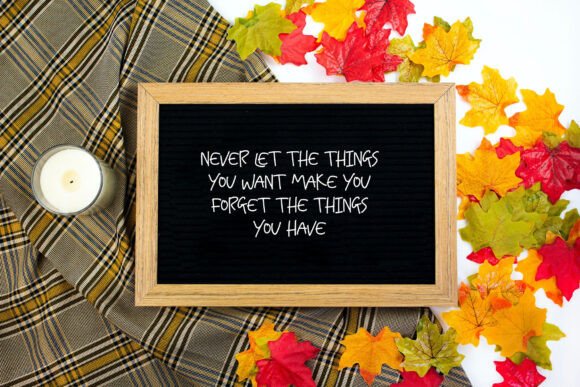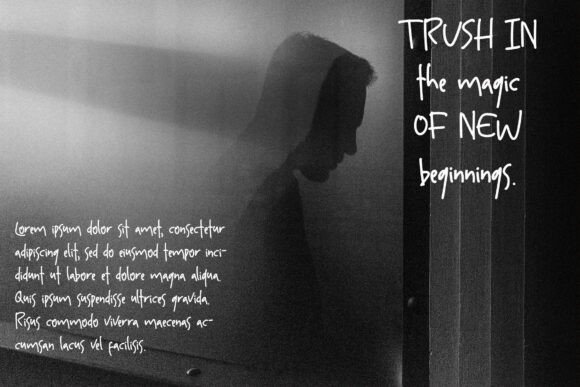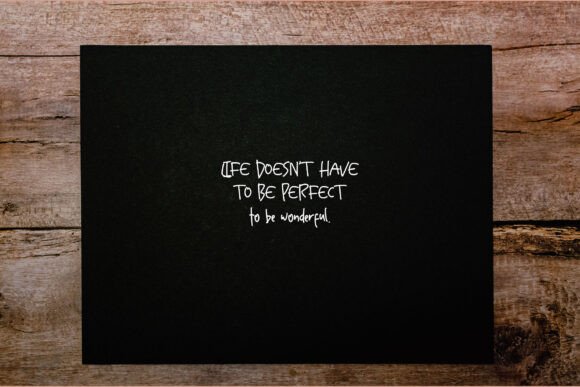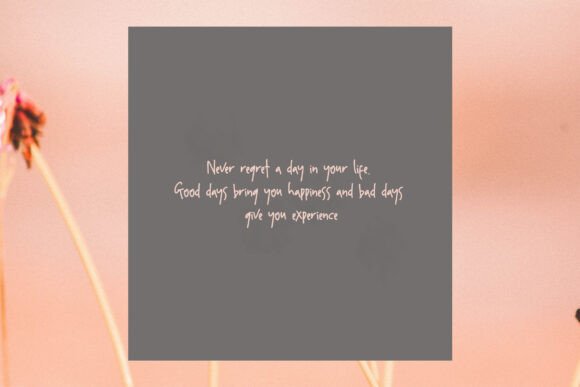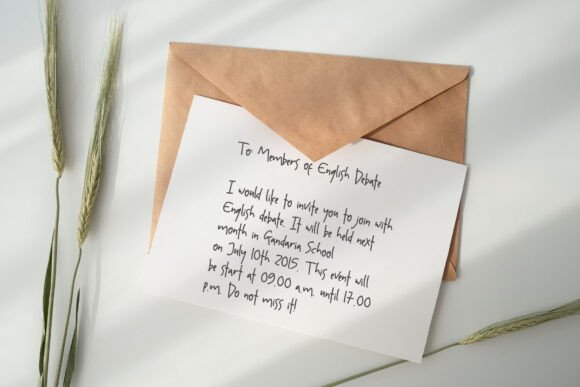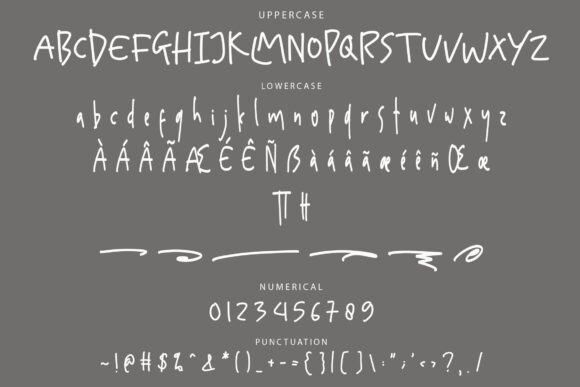
Aminola Font: Elevate Your Designs with Minimalist Elegance
In the world of typography, fonts play a crucial role in conveying the tone and aesthetic of a design. For designers and crafters looking to add a touch of modern sophistication to their creations, Aminola Font is an excellent choice. This minimalist monoline handwriting font is designed to bring clean lines and unique character shapes to your designs, making it perfect for a wide range of applications.
What is Aminola Font?
Aminola is a carefully crafted font that embodies the essence of minimalist design. Its monoline handwriting style features smooth, flowing lines that give your designs a sense of elegance and refinement. The font’s clean and simple aesthetic makes it versatile enough to be used in various design projects, from logos and product branding to invitations and more.
Key Features of Aminola Font
- Minimalist Design: Aminola’s minimalist approach ensures that your designs look sleek and modern, perfect for brands and projects that value simplicity.
- Monoline Handwriting Style: The font’s monoline handwriting style adds a personal touch to your designs, making them more approachable and engaging.
- Unique Character Shapes: Aminola’s unique character shapes set it apart from other fonts, giving your designs a distinctive look that’s sure to capture attention.
- Clean Lines: The font’s clean lines ensure that your designs look crisp and professional, making it perfect for high-end branding and marketing materials.
Uses of Aminola Font
Aminola’s versatility makes it suitable for a wide range of design applications. Here are some of the ways you can use this elegant font:
- Logo Design: Create a lasting impression with a custom logo that showcases your brand’s personality and values.
- Product Branding: Elevate your product packaging with Aminola’s sophisticated design, making your products stand out on store shelves.
- Invitations: Add a touch of elegance to your invitations, making them perfect for weddings, parties, and other special occasions.
- Marketing Materials: Use Aminola to create professional-looking marketing materials, such as brochures, flyers, and business cards.
Benefits of Using Aminola Font
By incorporating Aminola into your design projects, you can enjoy several benefits, including:
- Enhanced Visual Appeal: Aminola’s unique design elements and clean lines enhance the visual appeal of your creations, making them more engaging and memorable.
- Modern and Sophisticated Look: The font’s minimalist approach and monoline handwriting style give your designs a modern and sophisticated look that’s perfect for contemporary brands.
- Improved Brand Identity: Aminola helps you establish a strong brand identity by providing a consistent visual language that reflects your brand’s values and personality.
Tips for Using Aminola Font Effectively
To get the most out of Aminola, here are some tips to keep in mind:
- Pair with Complementary Fonts: Combine Aminola with complementary fonts to create visual interest and add depth to your designs.
- Experiment with Colors: Try out different color schemes to find the perfect combination that complements your brand’s identity and style.
- Use it Consistently: Use Aminola consistently across all your design projects to establish a strong brand identity and visual language.
Aminola Font is a versatile and elegant font that’s perfect for designers and crafters looking to add a touch of modern sophistication to their creations. With its minimalist design, monoline handwriting style, and unique character shapes, Aminola is an excellent choice for a wide range of design applications. By incorporating Aminola into your design projects, you can enhance the visual appeal, establish a strong brand identity, and create a lasting impression on your audience.